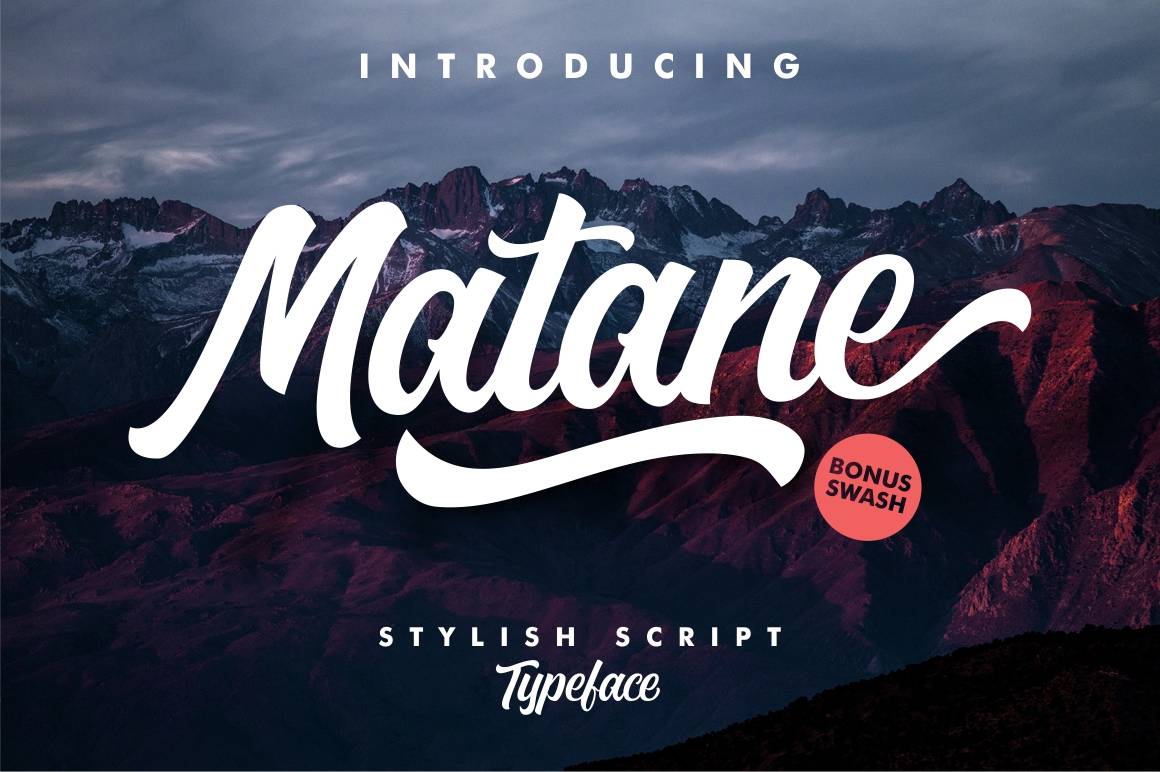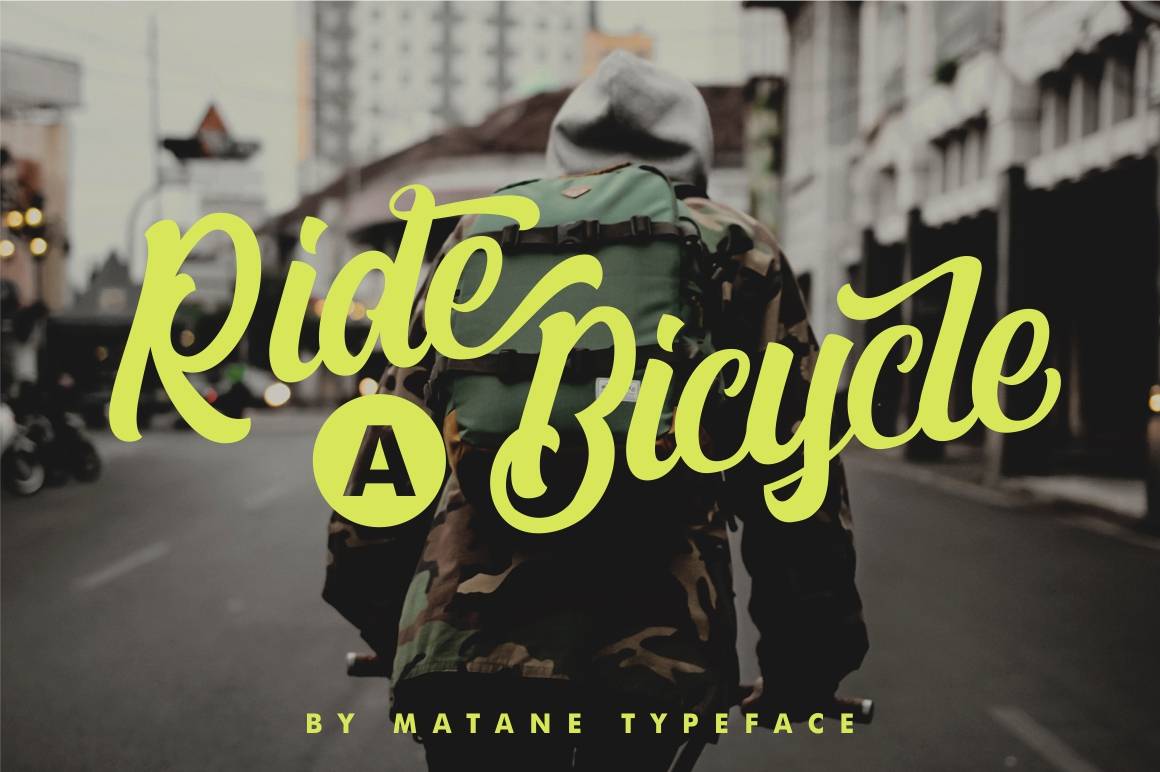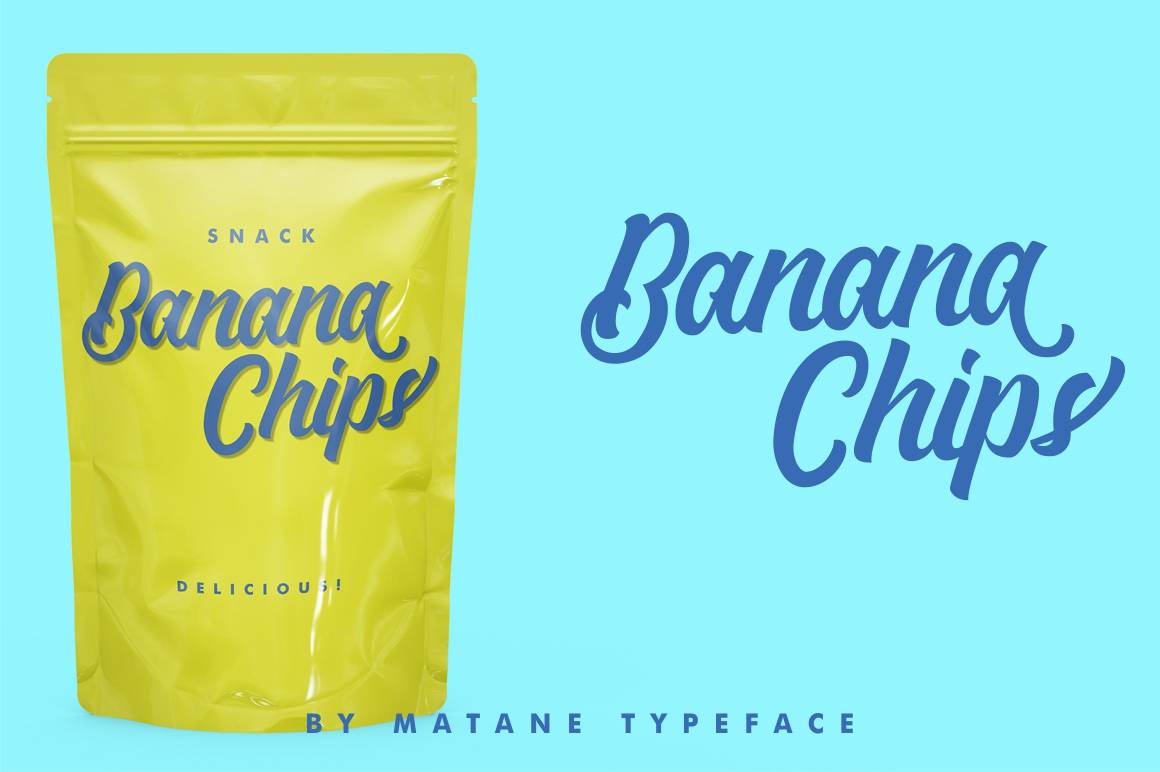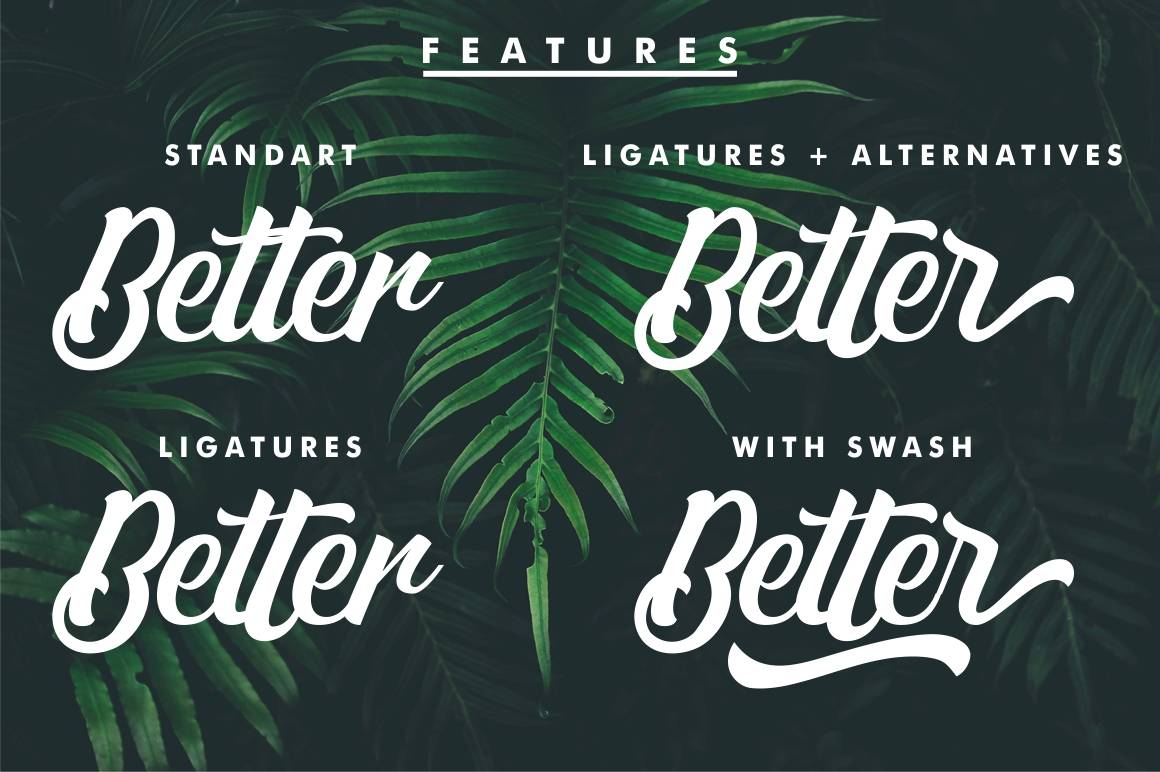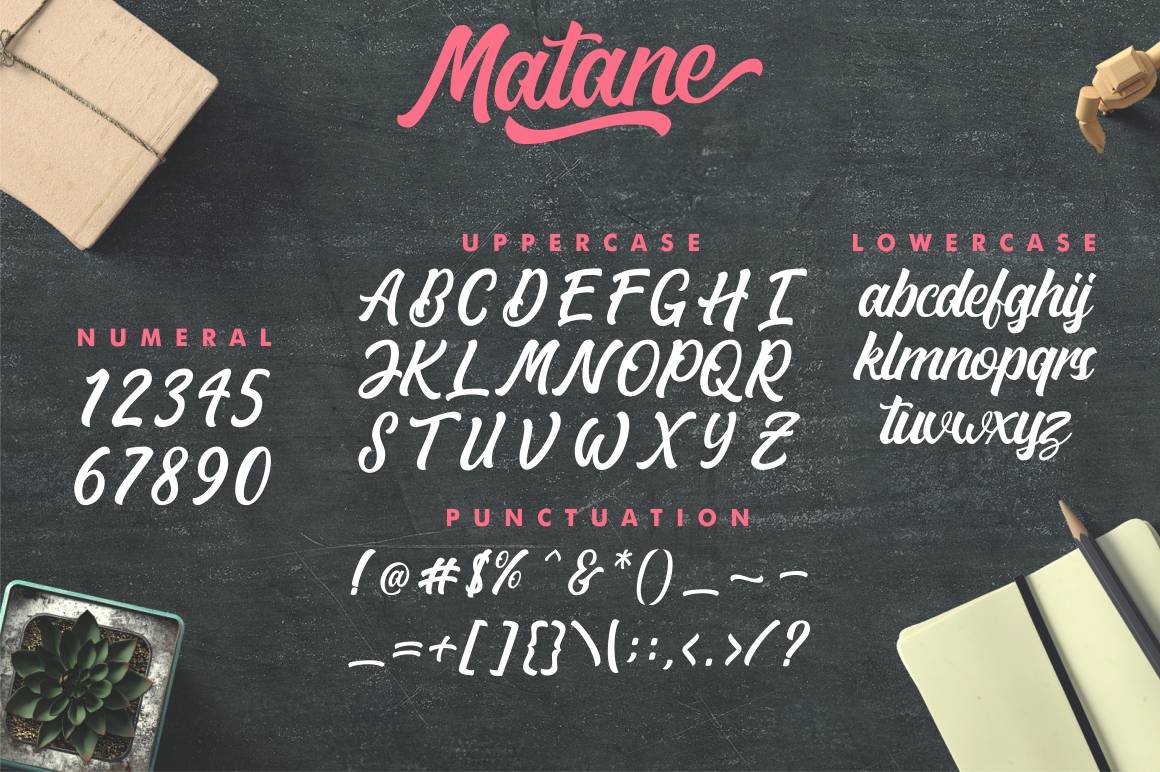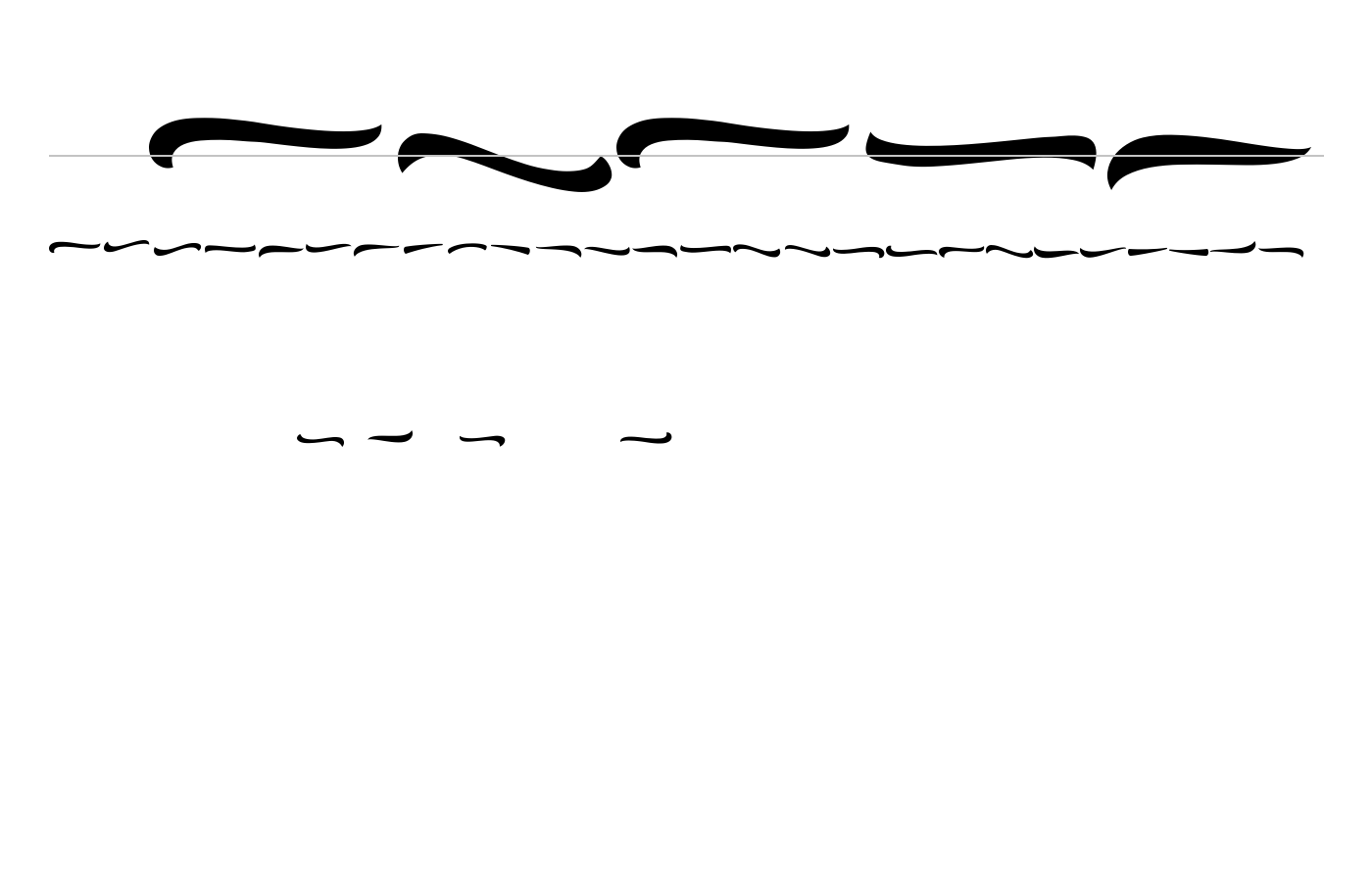
Matane Font is a decorative, script-inspired typeface with elegant, flowing strokes and a bold, calligraphic touch. Its thick to thin contrasts and uniquely curved terminals give it a stylish and dynamic feel, making it ideal for sophisticated branding, logos, and headlines that seek to evoke a sense of artistry and modern flair. This font works beautifully in designs that need a strong, expressive voice with a handcrafted, luxurious impression.
Matane Font
About Matane Font